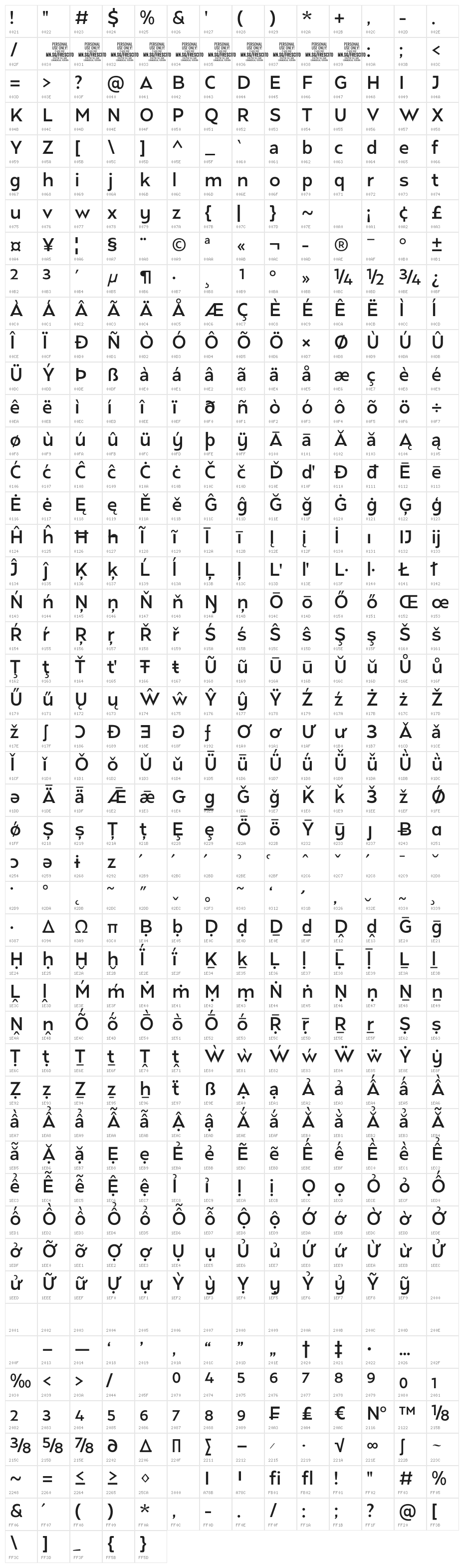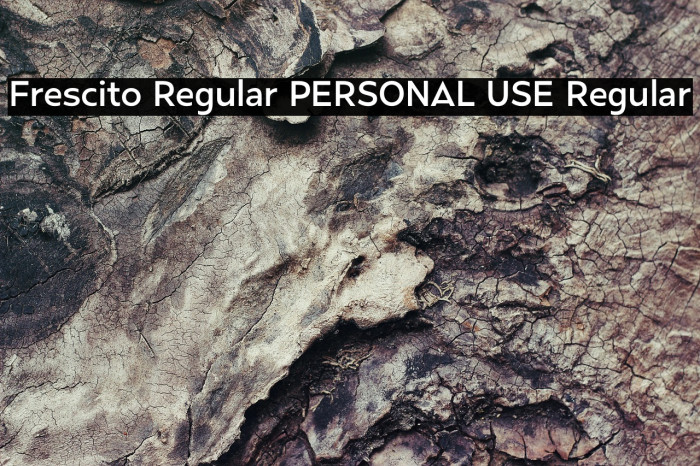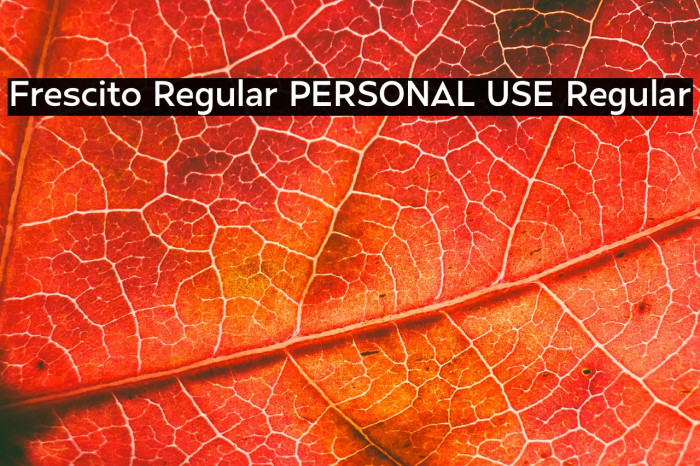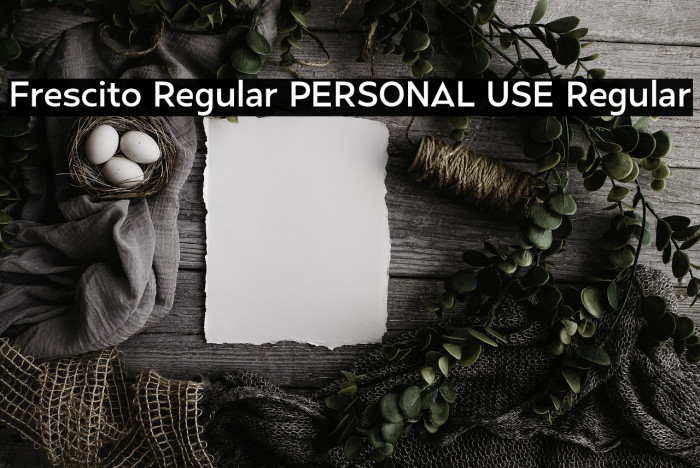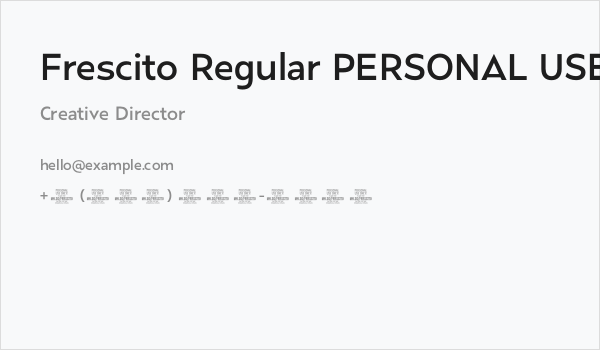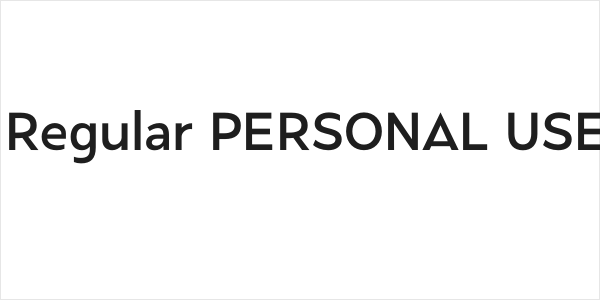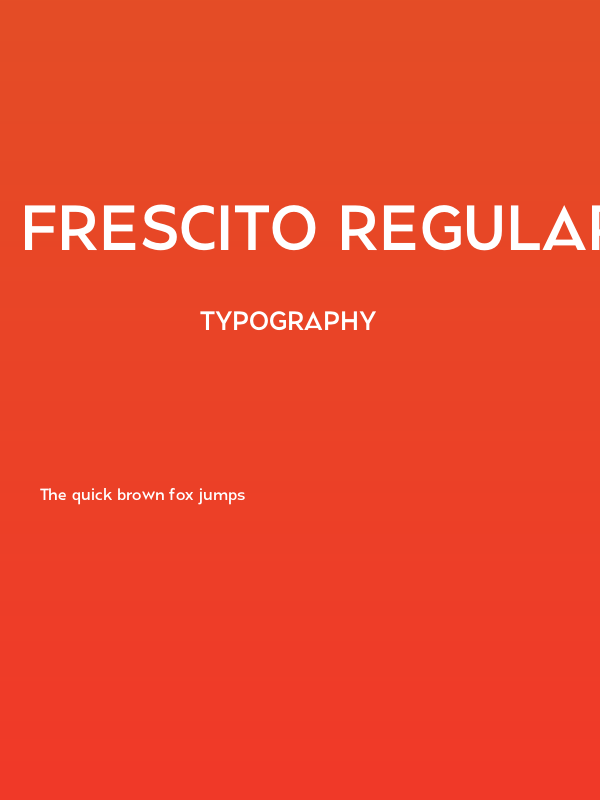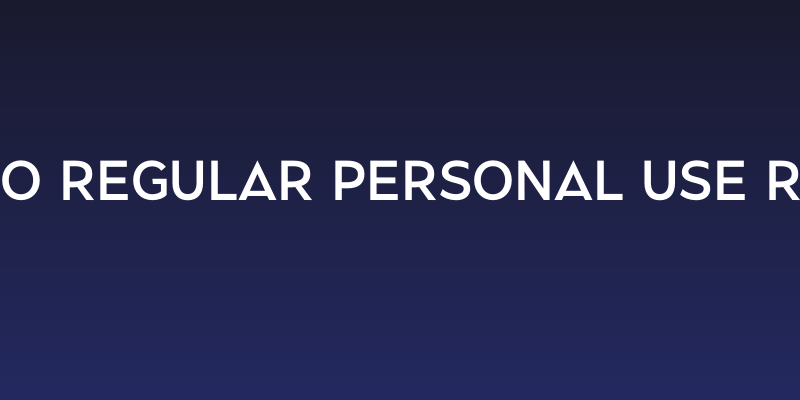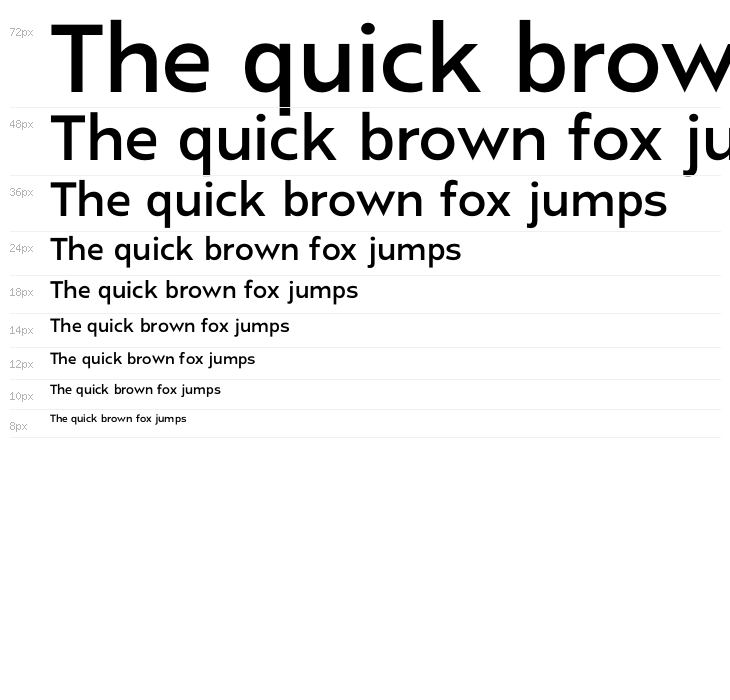
Frescito Regular PERSONAL USE Regular Font
Frescito Regular PERSONAL USE Regular Description
This font features a clean and modern sans-serif design, characterized by its bold and uniform stroke width. The uppercase letters are well-proportioned and maintain a consistent height, while the lowercase letters exhibit a slightly rounded appearance, adding a touch of friendliness to the overall aesthetic. The numerals are clear and easy to read, making them suitable for various applications. Special characters are distinct and well-integrated into the font's style, ensuring versatility in usage. The font's simplicity and clarity make it ideal for both digital and print media.
| Proposed Projects | Ideal for branding, advertising, web design, and editorial projects where clarity and modernity are essential. |